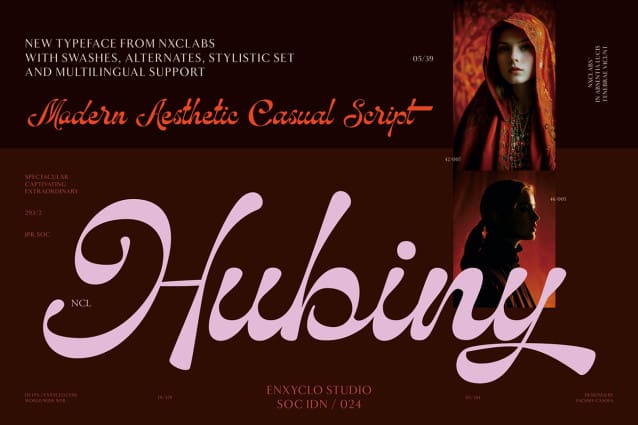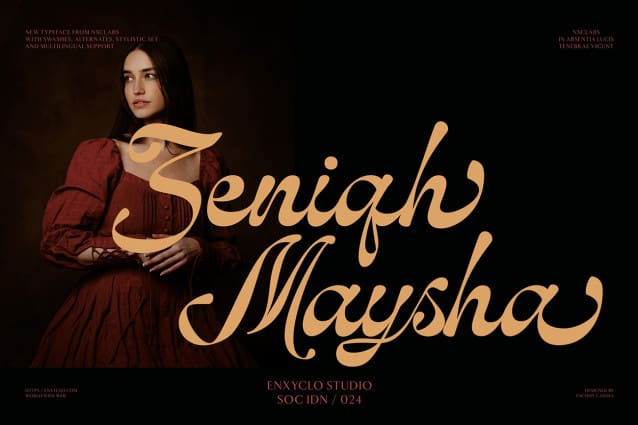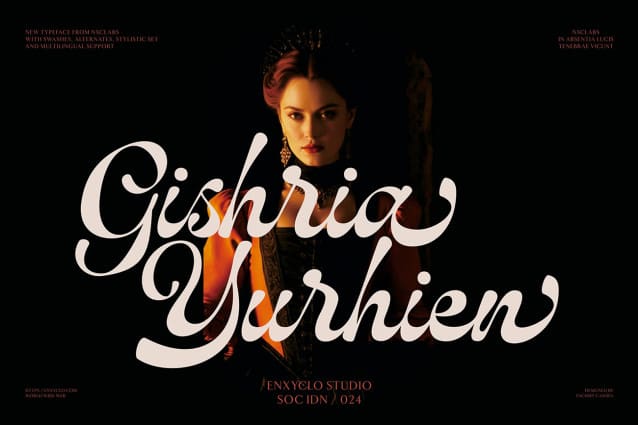
NCL Hubiny Font
NCL Hubiny is a modern casual script display font. Masterfully designed to become a true favorite, this font has the potential to bring each of your creative ideas to the highest level! It was purposely crafted to be used in large point sizes, although it doesn’t lose its magic in small point sizes. It is perfect for headline, digital ads, magazines, website, poster, branding, and logos. No matter the topic, this font will be an incredible asset to your fonts’ library, as it has the potential to elevate any creation. With this beautiful font, absolutely you can make your project stand out from the rest.
FEATURES
• 254 Unique Glyphs
• Alternates & Stylistic Set 1-3
• Uppercase & Lowercase
• Numeral, Punctuation & Symbols
• Multilingual Support